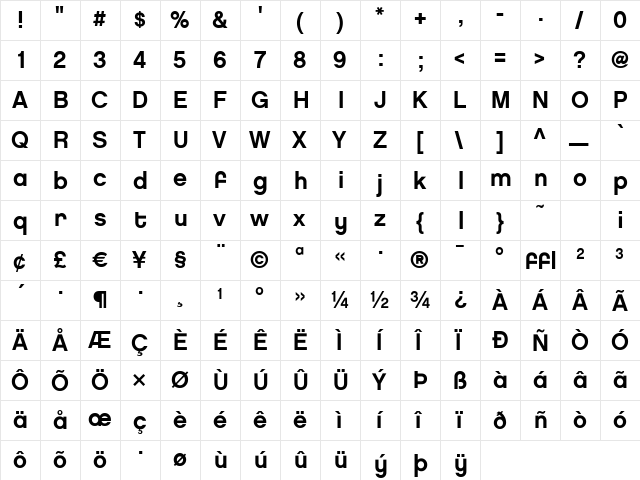
Chalet NewYork Regular Font Preview
Chalet NewYork Regular
Design Context for Chalet NewYork Typeface
Chalet NewYork takes a measured approach to typography — its balanced proportions and neutral character make it a reliable workhorse for both digital and print work.
Pro Tip: Pair Chalet NewYork with a font of contrasting weight or personality to build a more expressive typographic hierarchy.